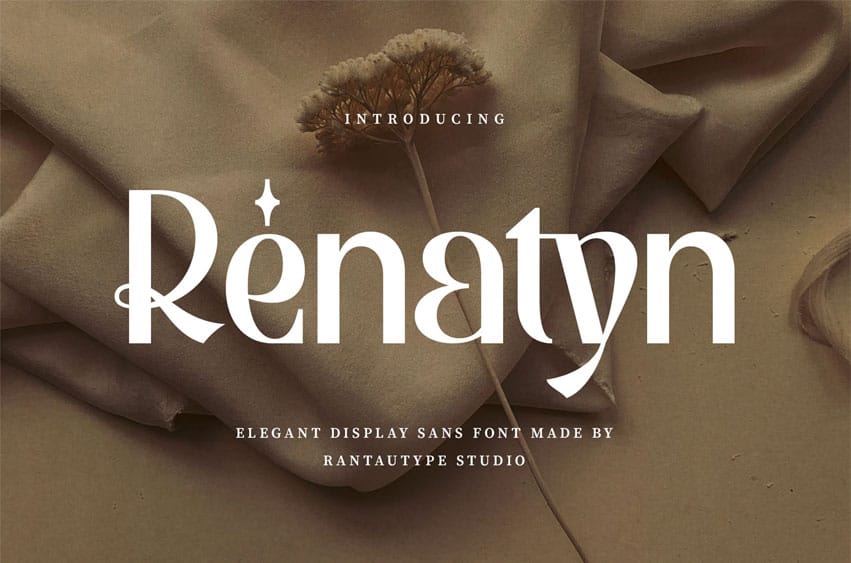
Renatyn Font is an elegant sans font that embraces simplicity, refinement, and a graceful aesthetic. Renatyn combines a stylish and minimalist character to make a different design project.
Renatyn is a perfect choice for any creative endeavor, chic lifestyle design such as logotype, advertisements, watermark on photography, stationery, branding project, display and magazine, invitation, corporate brand, product design, label, business project, and many other projects with a modern touch.